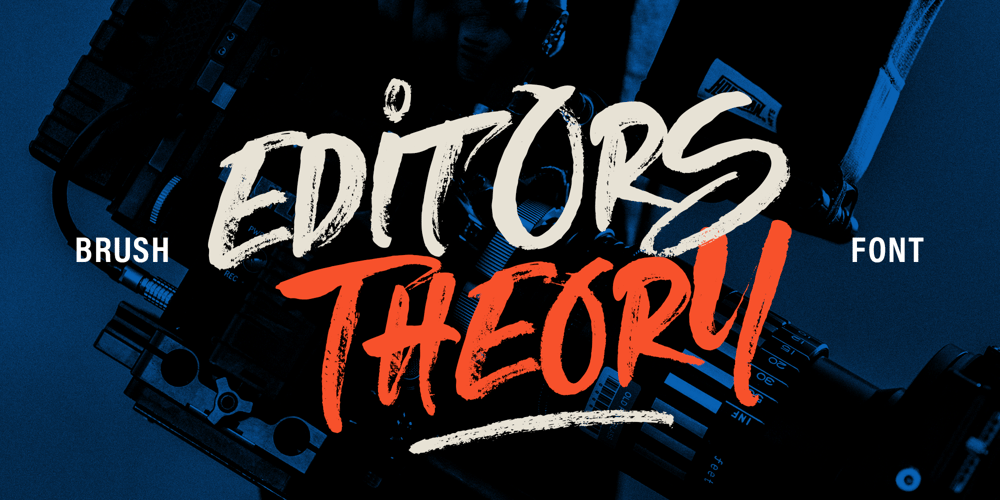
Editors Theory Font Family was designed by Alam Syahril and published by Realtype. Editors Theory contains 1 styles and family package options. It’s a bold, wet and irresistibly fun. It’s Editors Theory! A realistic hand brushed font just raring to get going. It’s perfect to leave a realistics impression on social media posts, advertisements, posters, products packaging & more.